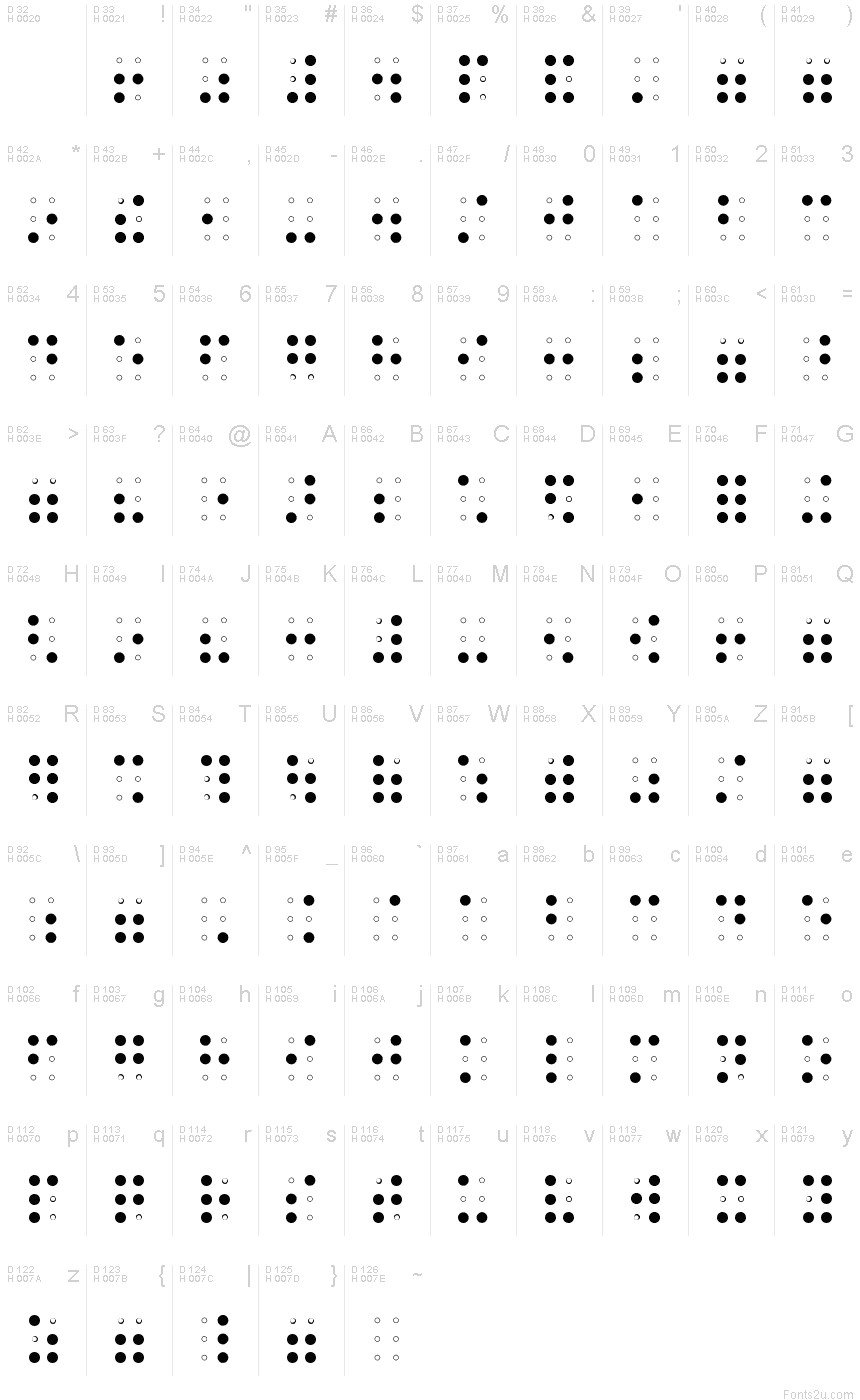
Braille AOE
Braille AOE font by Astigmatic One Eye Foundry is a free braille dingbat built from neat raised-dot cells, mixing solid and open circles for a tactile, instructional feel. The spacing is calm and orderly, so it reads less like decoration and more like a clear visual system for accessibility themes, classroom graphics, and awareness pieces.
Braille AOE works well in posters, nonprofit campaigns, book covers, signage mockups, packaging, and educational handouts where you want an instant braille reference without visual clutter. This free font looks strongest at generous sizes and pairs nicely with a plain sans serif that lets the dot patterns stay crisp.